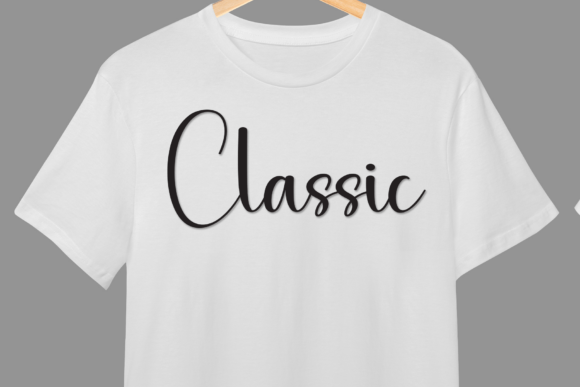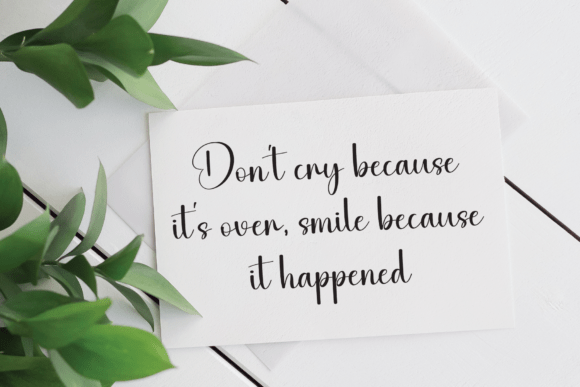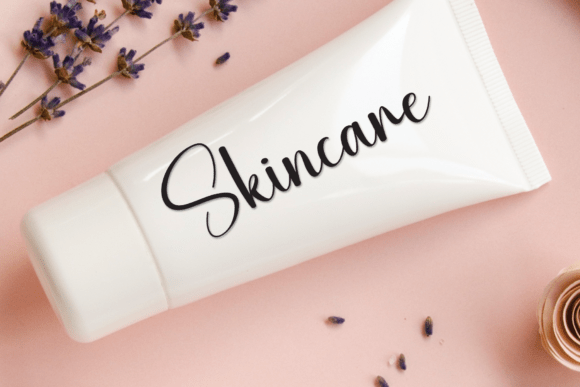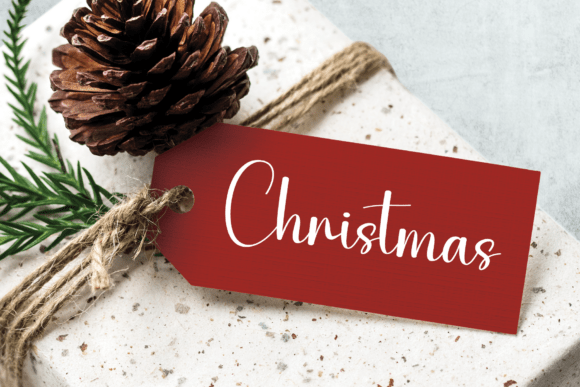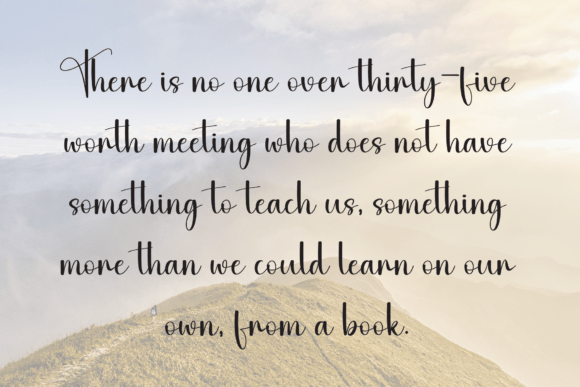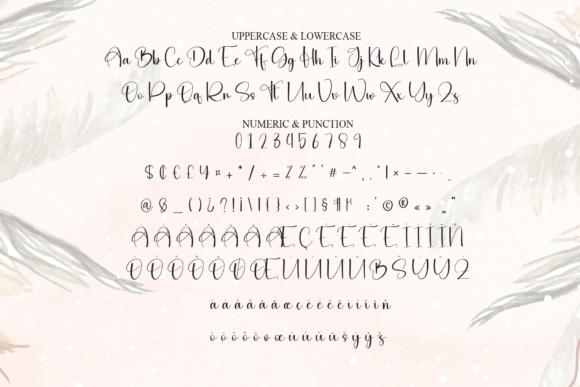
Unlock Your Creative Potential with Bohotime Font
Have you ever been in the middle of a design project, pouring your heart and soul into it, only to hit a roadblock when it comes to finding the perfect font? I recall a particularly frustrating experience when I was working on a wedding invitation design. My client wanted something elegant, yet modern, and I just couldn’t seem to find a font that fit the bill. That’s when I stumbled upon the Bohotime Font, and let me tell you, it was a game-changer! 🎉
A Personal Review of Bohotime Font
I’ve had the pleasure of working with the Bohotime Font for several projects, and I’m excited to share my honest review with you. Here’s what I love about it:
- ✨ Unique and Creative: The Bohotime Font boasts a distinctive, creative style that’s perfect for making your designs stand out.
- ✅ Versatile: Whether you’re working on wall displays, wedding invitations, social media post logos, advertisements, product packaging, or any other project that requires tasteful handwriting, this font has got you covered.
Now, I’m not going to sugarcoat it – there are a few minor quirks to be aware of:
- ⚠️ Learning Curve: As with any new font, there might be a slight learning curve to get familiar with the OpenType features and glyphs.
- 🤔 Limited Stylistic Alternates: Some users might find the number of stylistic alternates a bit limited, but I personally haven’t encountered any issues with this.
The Story Behind Bohotime Font
The Bohotime Font was created by a team of designers who wanted to craft a unique and versatile font that would meet the needs of creative professionals. With its distinctive style and wide range of applications, it’s no wonder that Bohotime Font has become a favorite among designers and crafters.